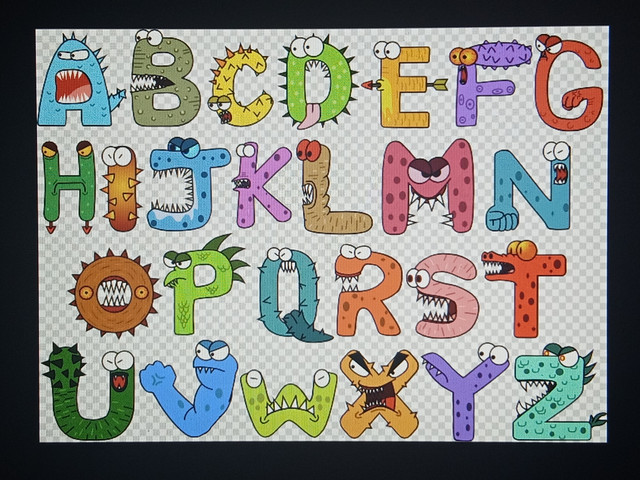
I finished inking my Monster fonts for art class. Now I have to design a cereal box to go with the letters.My favorite letter is "P". It looked soooooo cute before I colored it in. Q was based off Marvin, S and G were based off slimy (oscar's pet worm), T was based off beaker, and O was the based off the manamana things.
Hello SimonSoys, I really like your Font nicely drawn.
Do you have plans to add new monsters to your already existing ones?